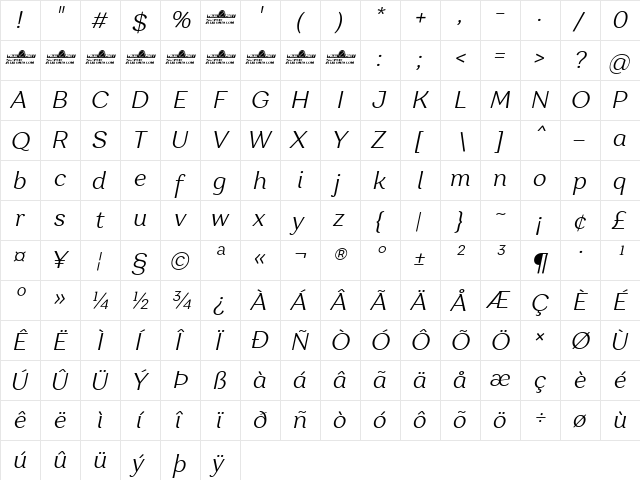
Garbata Trial Light Italic
| Foundry | Zetafonts |
| Designer | Francesco Canovaro, Debora Manetti |
Design Context for Garbata Trial Typeface
Garbata Trial is a composed and adaptable typeface that performs quietly and consistently across a wide range of design contexts. The slanted form adds forward momentum and visual energy. Its slender proportions lend an understated elegance to any composition.